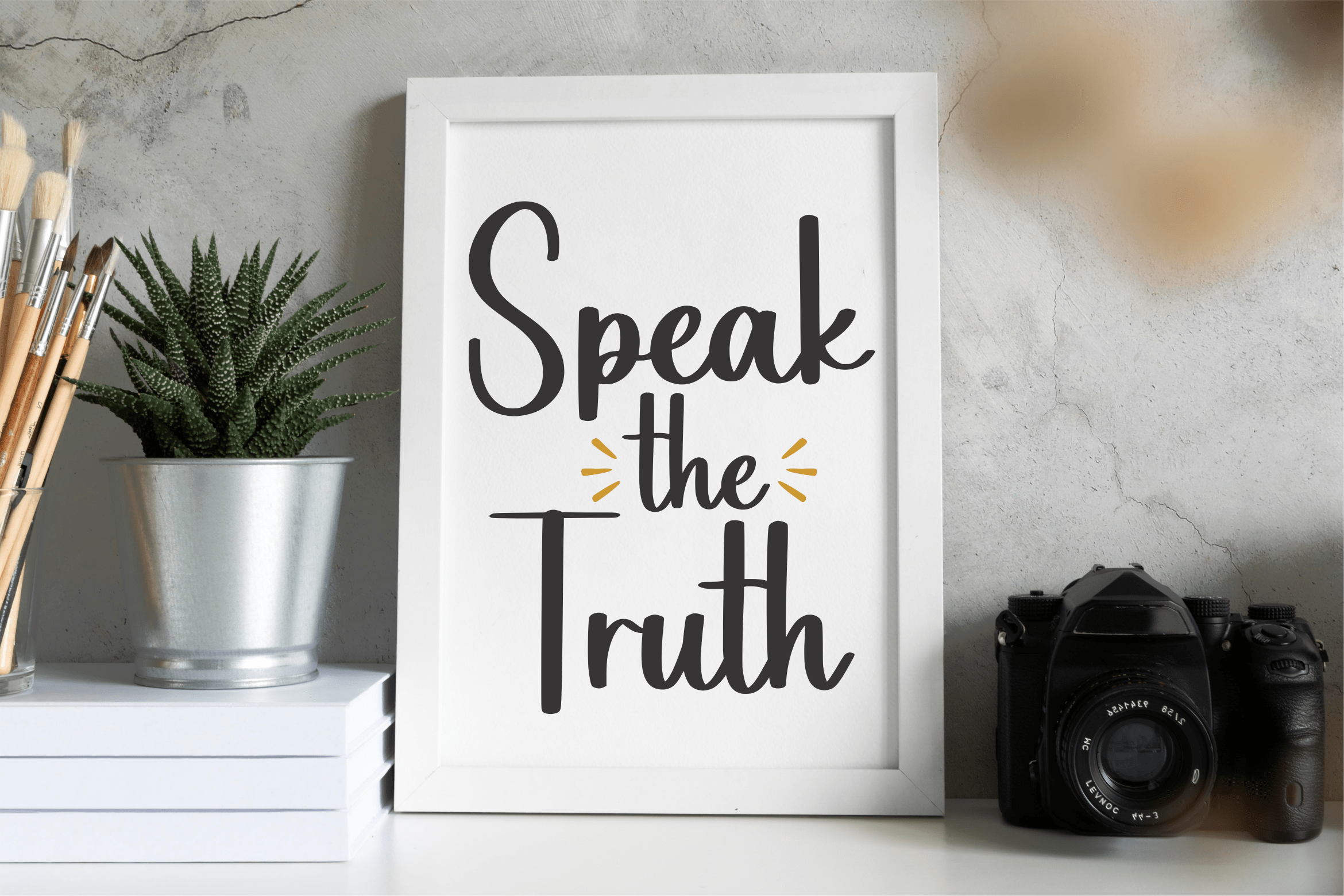
Bellowingsky Font
Bellowingsky Script Font
It’s a modern handwritten font perfect for product packaging, branding projects, magazines, social media posts, weddings, or just used to express words above the background. This font is PUA encoded, which means you can access all glyphs and swashes with ease!